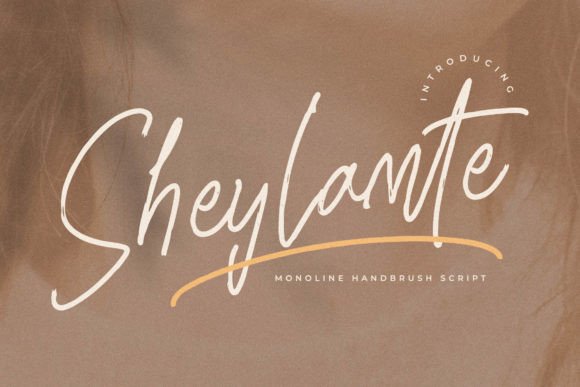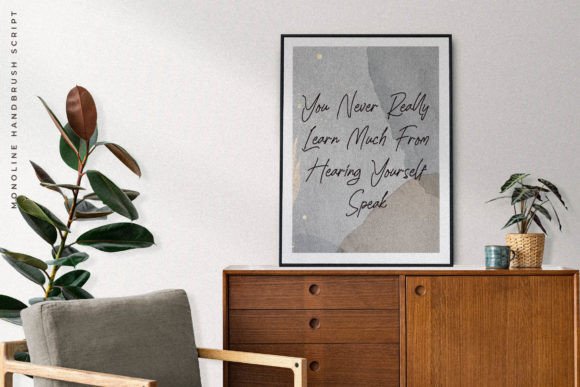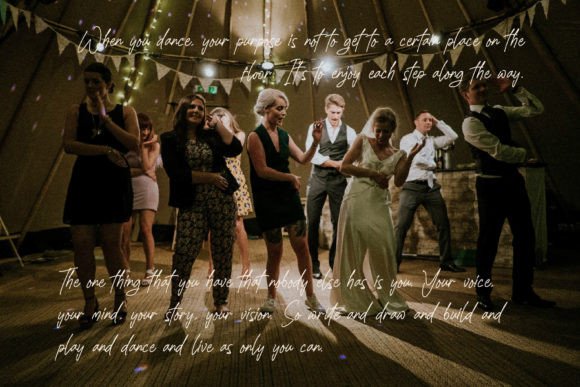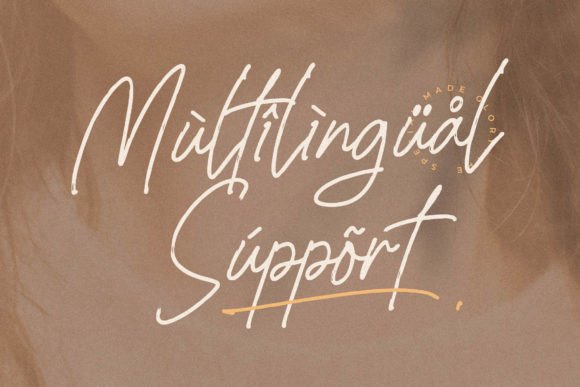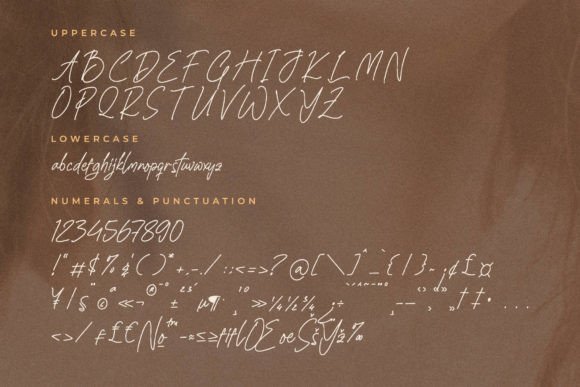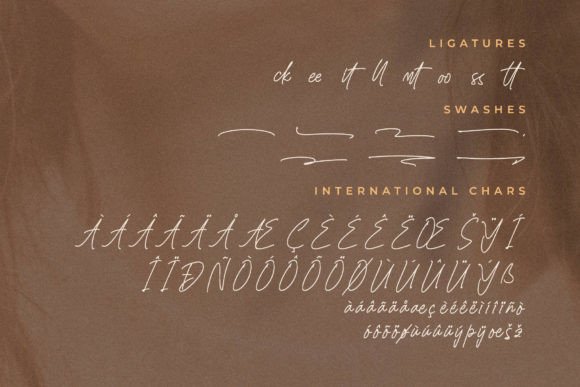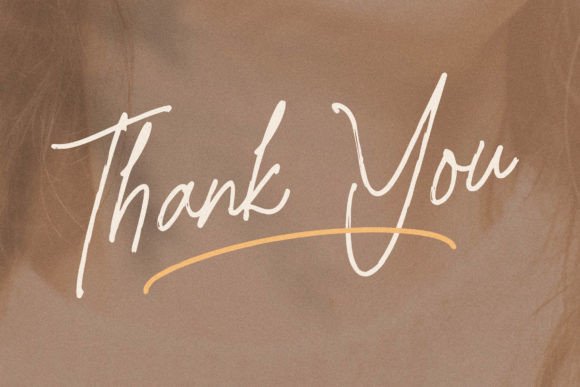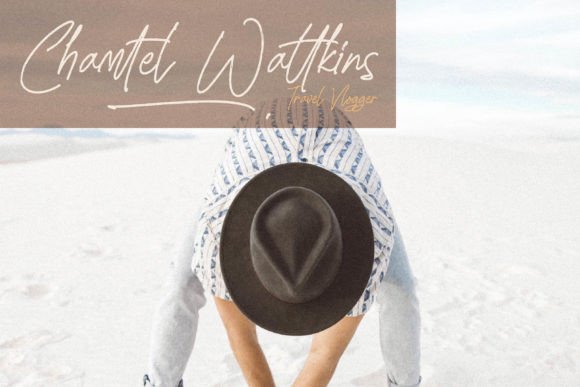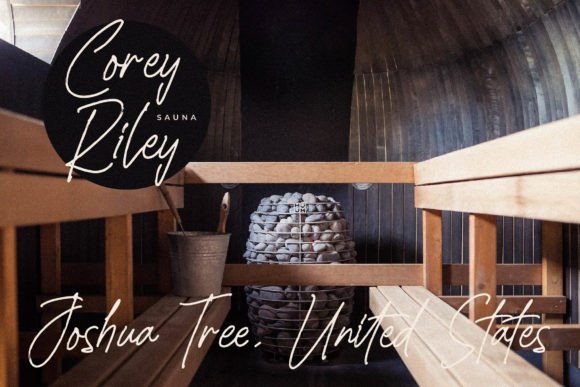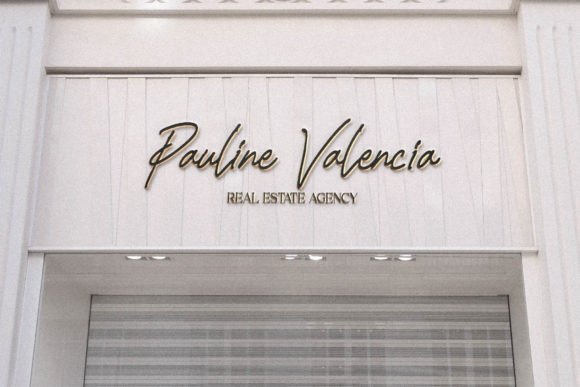
Sheylamte Font
A Beautiful Monoline Handbrush Script Font
The Sheylamte Font is a monoline handbrush script typeface that adds a unique and artistic touch to any project. With its clean, flowing lines and handwritten style, this font is perfect for a variety of creative designs, from logos to product packaging. Its beautiful script taste brings an elegant yet casual charm to your designs, making it suitable for both formal and informal projects.
Perfect for Logos and Branding Projects
For logos and branding, the Sheylamte Font is an ideal choice. Whether you’re working on a new brand, personal logo, or business identity, this font gives your logo a unique, handcrafted feel. The monoline script creates a clean, sophisticated look while maintaining a friendly, approachable vibe. Perfect for startups, creative businesses, or any company seeking to stand out with personalized branding.
Ideal for Product Packaging and Custom Designs
The Sheylamte Font shines in product packaging and custom designs. Whether you’re creating mugs, clothing, gifts, or homeware designs, this font adds a beautiful, personalized touch to your products. Its flowing script ensures that your packaging feels unique and premium, making it perfect for businesses offering luxury goods, handmade items, or customized products. It’s ideal for creating memorable and attractive packaging that makes your products stand out.
Great for Greeting Cards and Invitations
For greeting cards and invitations, the Sheylamte Font brings a romantic, elegant touch to any design. Whether you’re creating wedding invitations, thank-you cards, birthday invitations, or holiday greetings, this font adds a personalized and heartfelt element to your designs. Its handwritten appearance ensures your messages feel authentic and warm, perfect for any occasion that requires a beautiful, script-based style.
Ideal for Posters, Quotes, and Photography
The Sheylamte Font is perfect for creating posters, quotes, and photography designs. Whether you’re designing motivational posters, home decor prints, or photography watermarks, this font adds a charming, stylish touch to your designs. Its clean strokes and elegant lines make it highly legible, while still conveying an artistic flair. Perfect for photographers, designers, and creatives who want to add elegant typography to their work.
Versatile for Shopping Bags and Apparel
The Sheylamte Font is an excellent choice for shopping bags and apparel designs. Whether you’re designing custom t-shirts, bags, or accessories, this font adds a personalized and artistic touch to your clothing line. Its monoline handbrush script creates a modern, elegant look that fits perfectly on a range of products. It’s ideal for fashion brands, boutiques, or custom design projects that want a beautiful handwritten style.
Elegant, Legible, and Timeless
Despite its handwritten script design, the Sheylamte Font remains legible and easy to use. Its smooth lines ensure that your text remains clear and readable, even for longer passages or smaller sizes. Whether you’re using it for headlines, captions, or body text, this font strikes the perfect balance between creativity and readability, making it suitable for a variety of design applications.
Add Elegance and Charm to Your Designs with Sheylamte Font
If you’re looking for a monoline handbrush script font that adds a beautiful, personalized touch to your designs, the Sheylamte Font is the perfect choice. Whether you’re working on logos, product packaging, greeting cards, or social media content, this font brings a unique and elegant feel to your work. Let the Sheylamte Font help you create memorable, creative designs that leave a lasting impression.